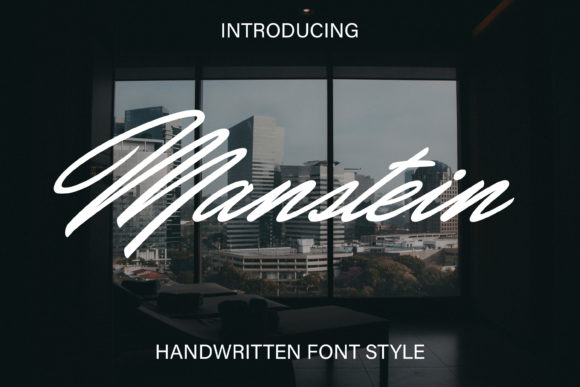
Manstein Font
About Manstein Font
**Manstein Font: Elegance in Every Curve**
Introducing “Manstein,” a stunning handwritten font designed to elevate your creative work with its elegant and curvaceous lines. Whether you’re working on product packaging, branding projects, magazine covers, social media graphics, or wedding materials, “Manstein” adds a touch of sophistication, making it the perfect choice to express words with grace against any background.
The allure of “Manstein” lies in its unique blend of elegance and handcrafted charm. Every curve and stroke has been carefully crafted to create a font that exudes sophistication and stands out in various design contexts.
For product packaging, “Manstein” becomes a visual treat, enhancing the overall appeal of your products. Its elegant lines contribute to a sense of luxury, making it an excellent choice for brands that want to convey a premium image.
In branding projects, “Manstein” adds a distinctive touch that sets your brand apart. The font’s refined curves create a visual identity that communicates professionalism and style, leaving a lasting impression on your audience.
Magazine covers benefit from the font’s ability to capture attention. The elegant and curvy lines of “Manstein” make it suitable for a variety of editorial styles, adding a touch of sophistication to your publication.
On social media, “Manstein” brings a sense of refinement to your graphics and posts. Whether you’re sharing quotes, announcements, or promotional content, the font’s elegant design enhances the visual impact of your messages.
Wedding materials, from invitations to place cards, take on a new level of sophistication with “Manstein.” The font’s graceful lines contribute to the romantic and elegant atmosphere of wedding-related designs.
Whether you’re expressing words or creating a visual identity, “Manstein” is more than just a font—it’s a tool for infusing elegance into your creative projects. Let its curvy lines and graceful demeanor elevate your designs and make a statement of sophistication.